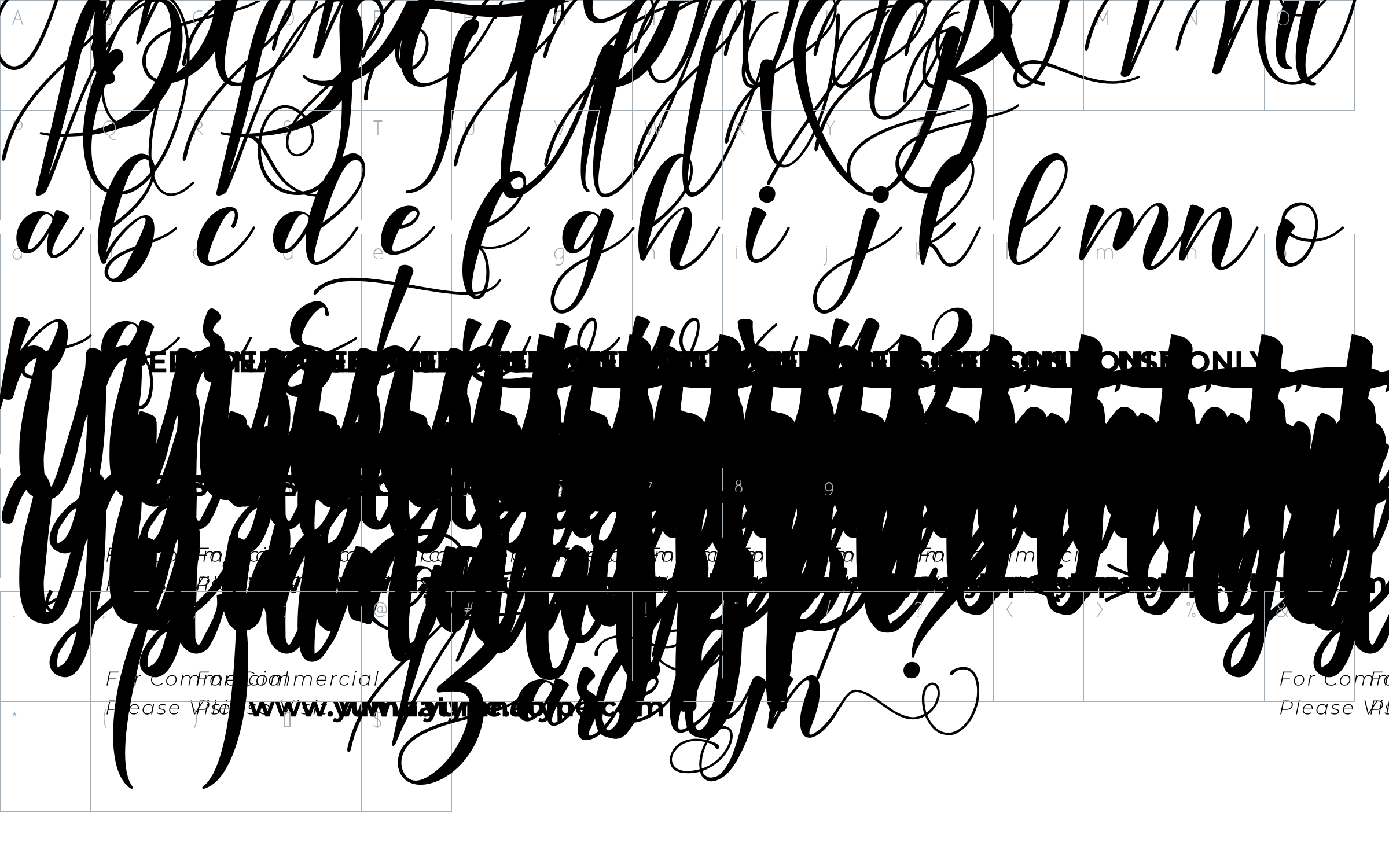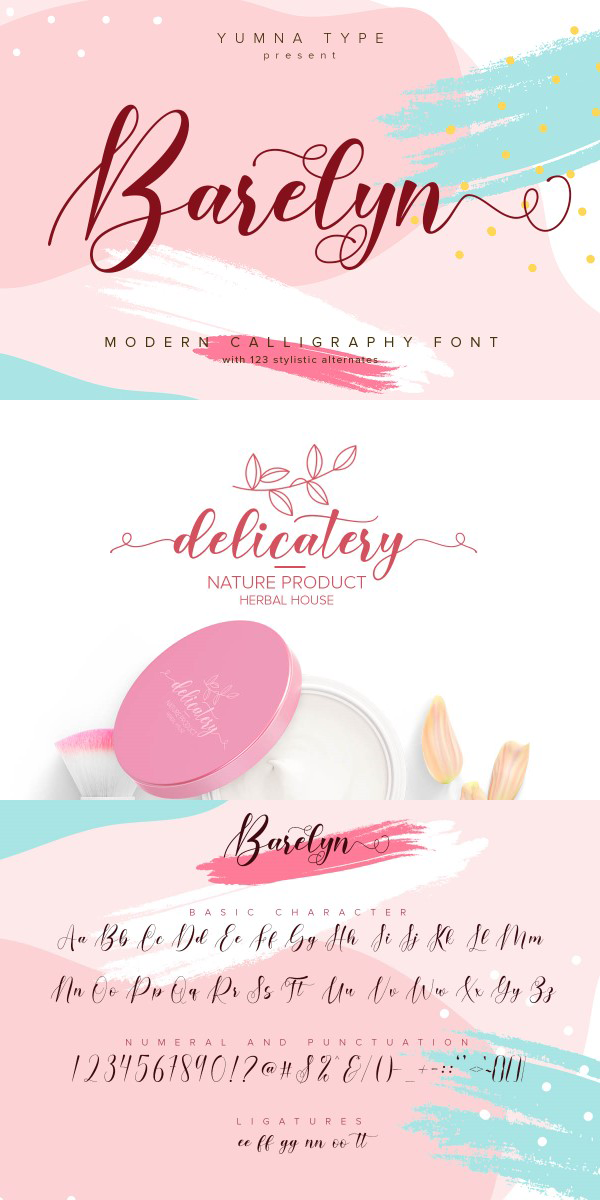
Barelyn Font
About Barelyn
Say hello to Barelyn Script.
Barelyn is a beautiful and modern script.
It brings a beautiful and modern typeface that best used for weddings, branding, logotype, and quotes.:
-Beautiful Alternates + Swashes
-Beginning Swash and Ending Swashes (a-z)